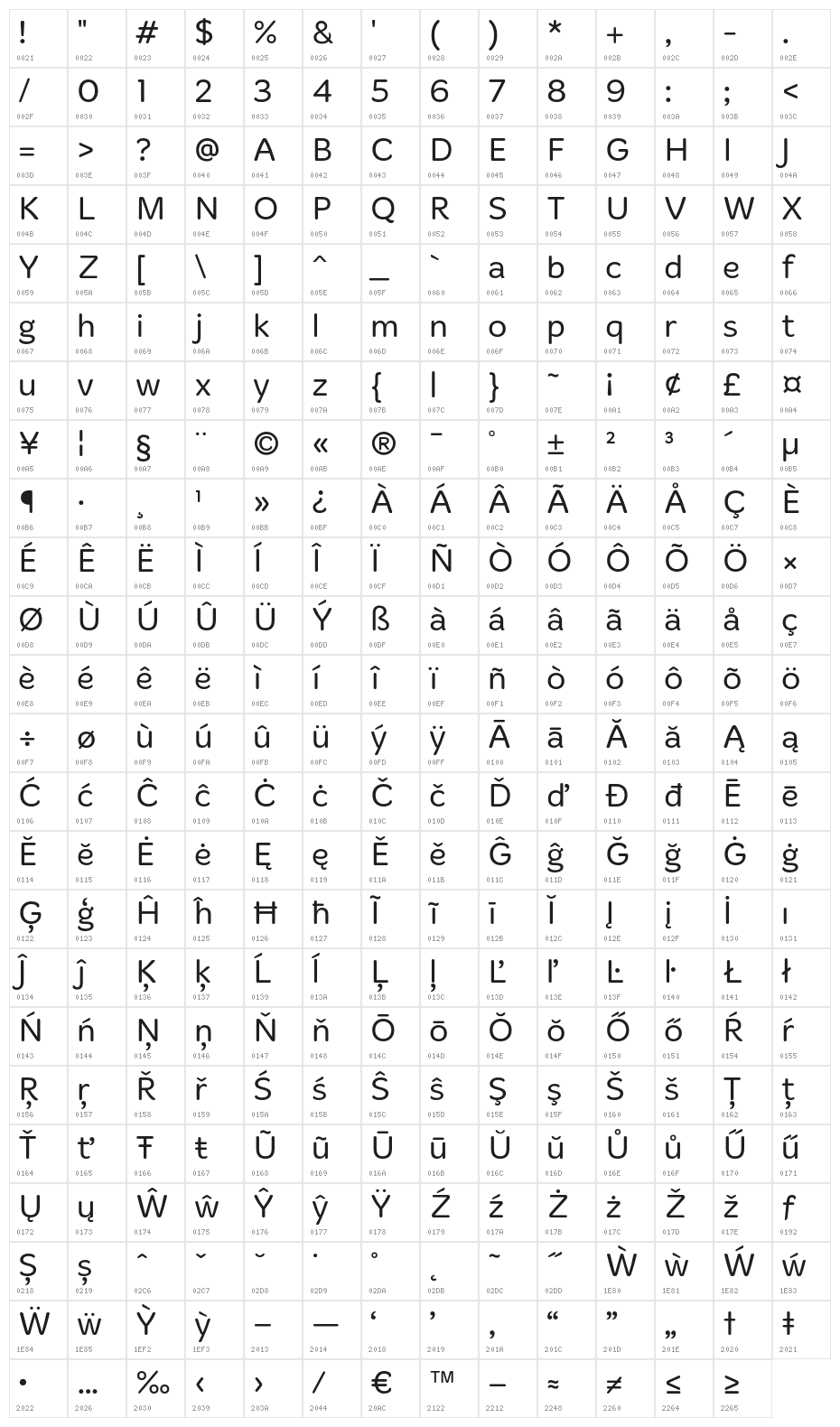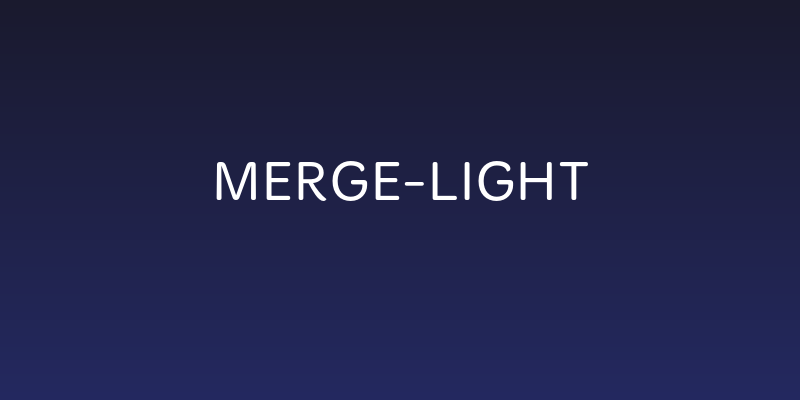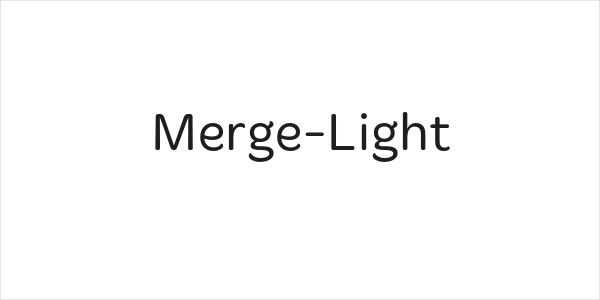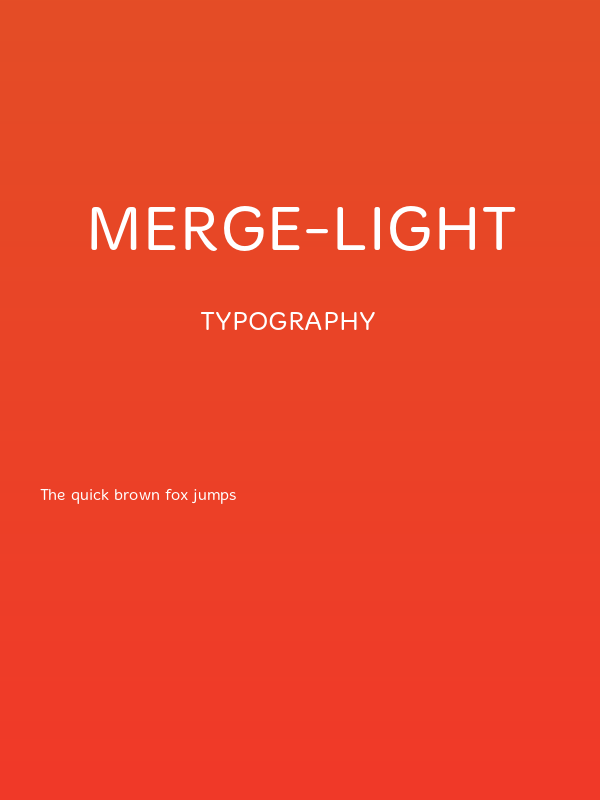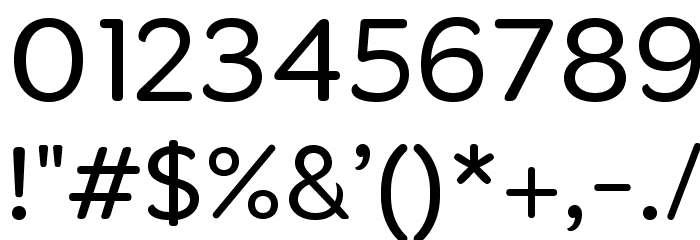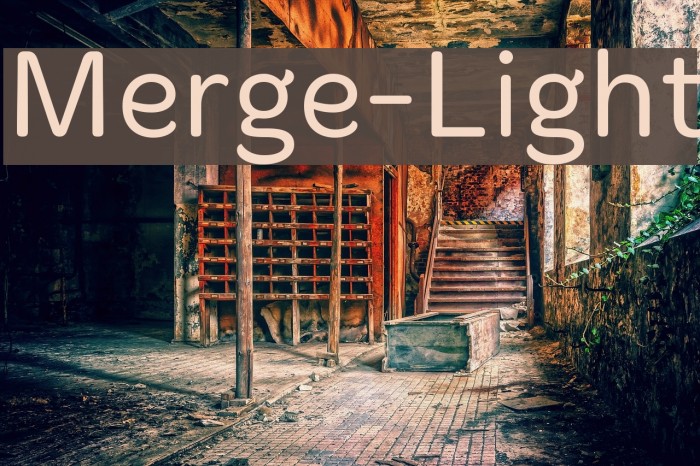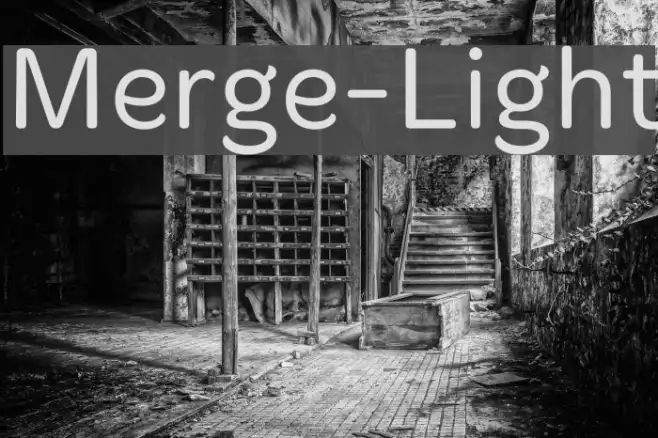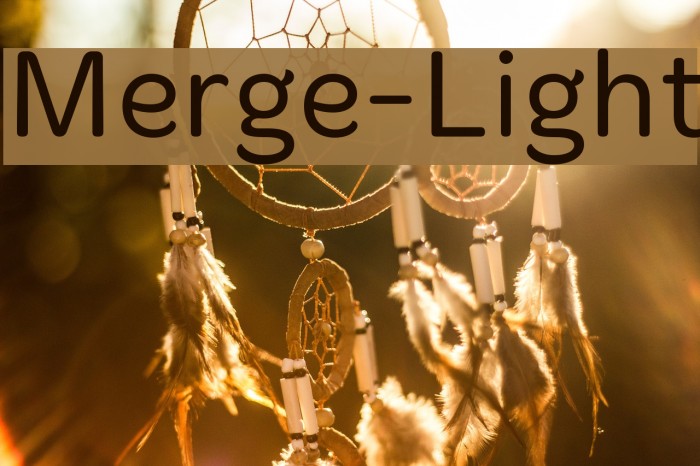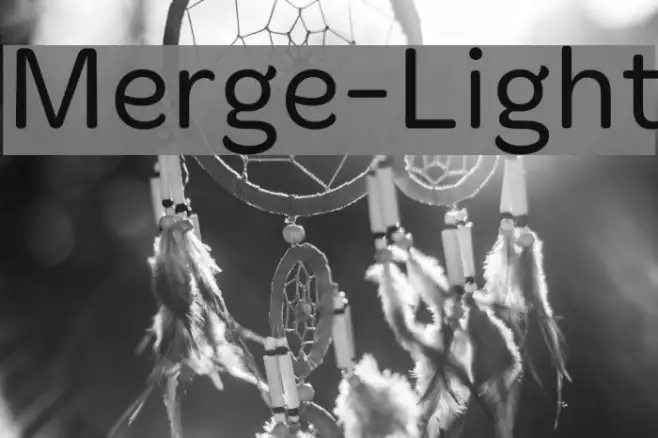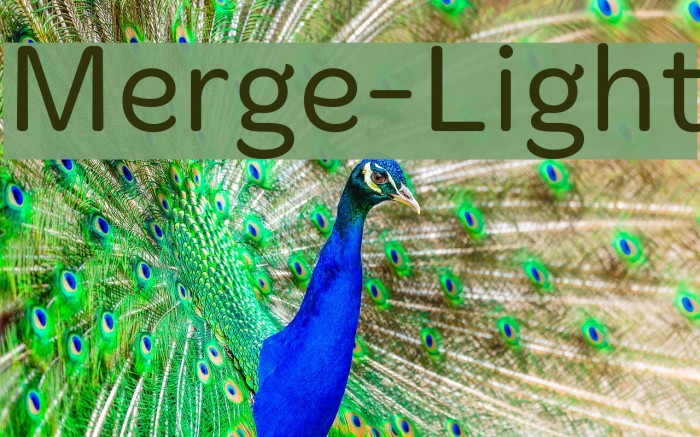
Merge-Light Font
Merge-Light Description
This font features a clean and modern sans-serif design with a geometric structure. The characters are evenly spaced, providing a balanced and harmonious appearance. The strokes are consistent in width, contributing to its legibility and clarity. The uppercase letters are bold and assertive, while the lowercase letters maintain a friendly and approachable feel. The numerals are clear and distinct, making them suitable for various applications. The special characters are well-integrated, ensuring versatility in design projects.